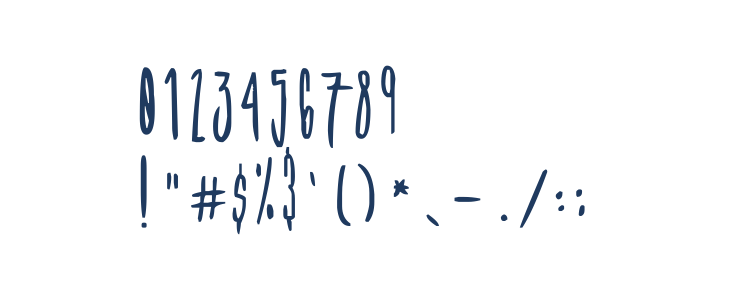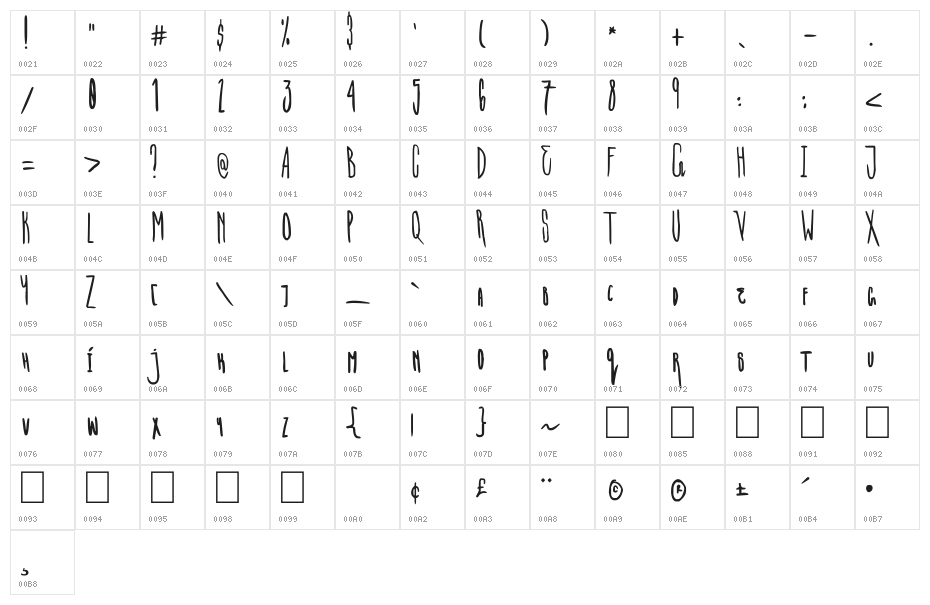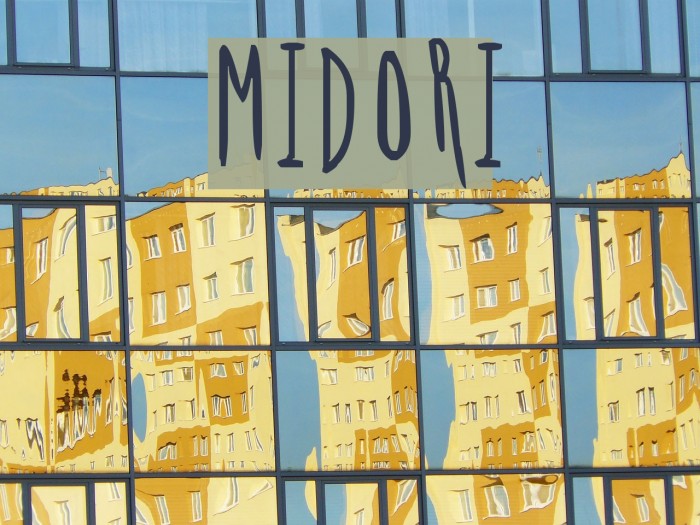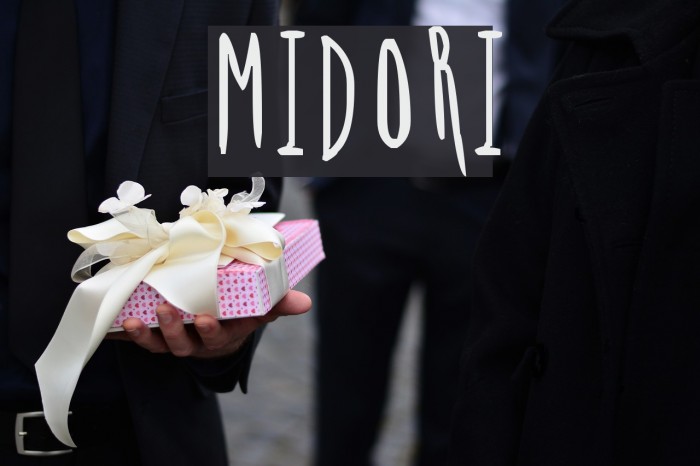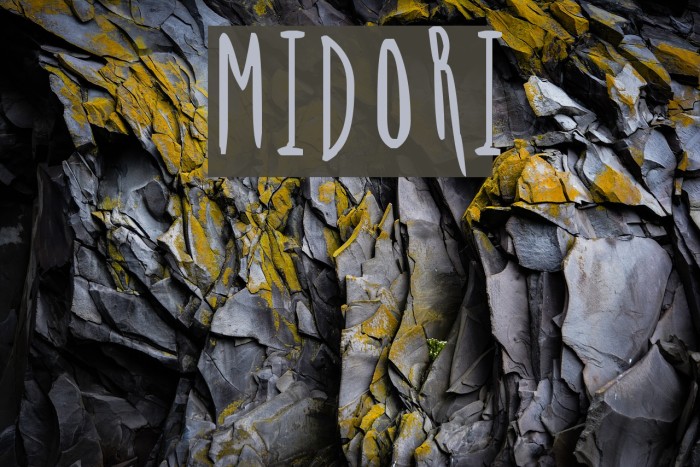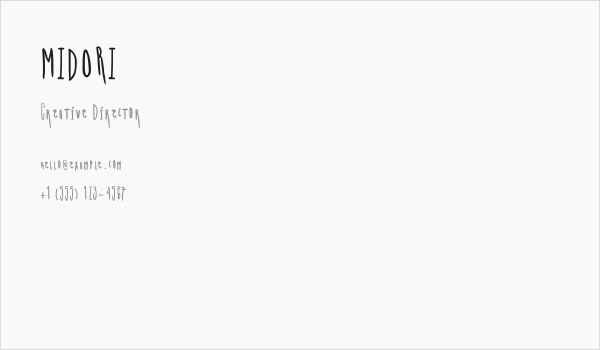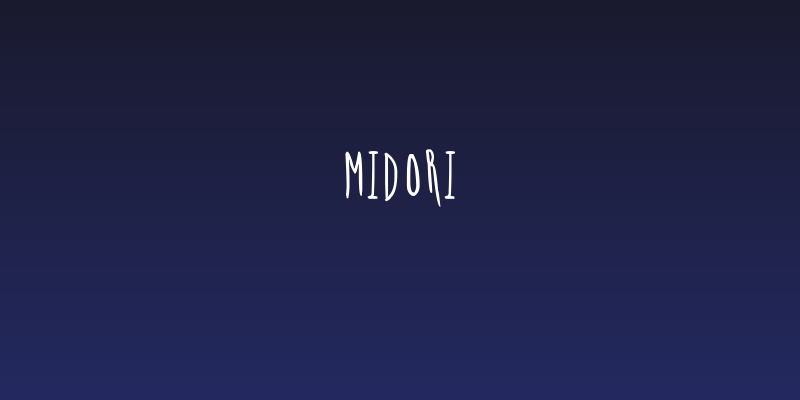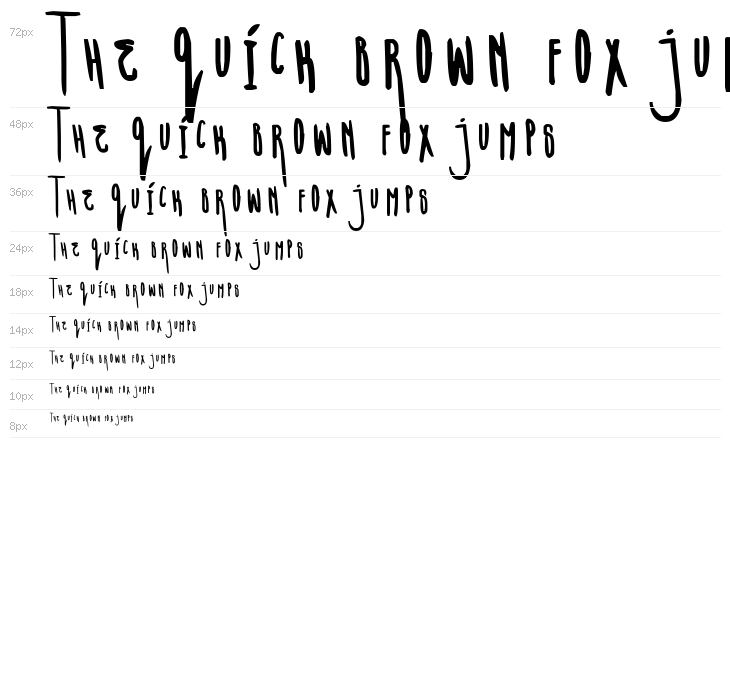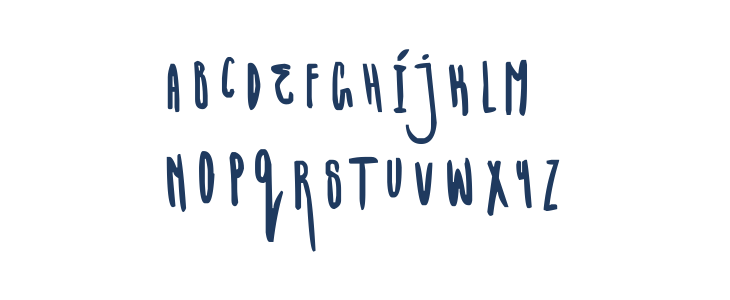
MIDORI Font
MIDORI Description
This font features a playful and quirky handwritten style with tall, narrow letters. The strokes are uneven, giving it a casual and artistic feel. The uppercase letters are elongated, while the lowercase letters maintain a consistent height, creating a unique visual rhythm. Numbers and special characters follow the same whimsical design, adding to its charm. The font's irregularities and organic shapes make it ideal for projects that require a personal touch or a creative flair.
| Width | Condensed |
| Use Case | Headlines, Logos, Creative projects |
| Proposed Projects | Great for greeting cards, children's books, creative posters, and personal branding. |